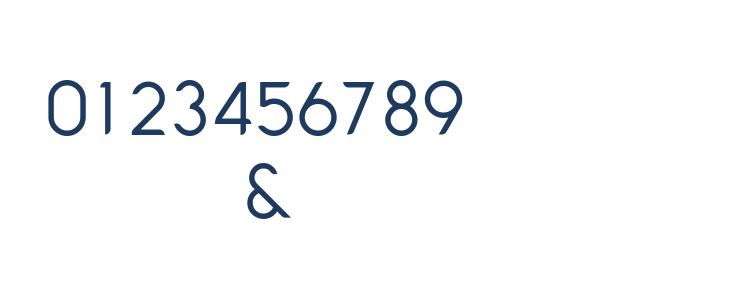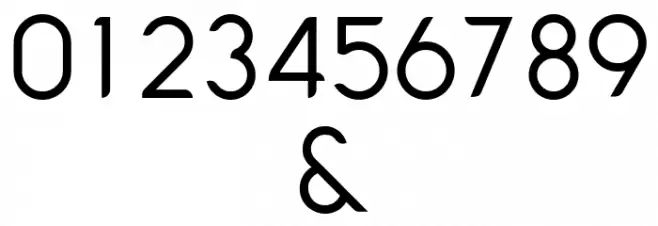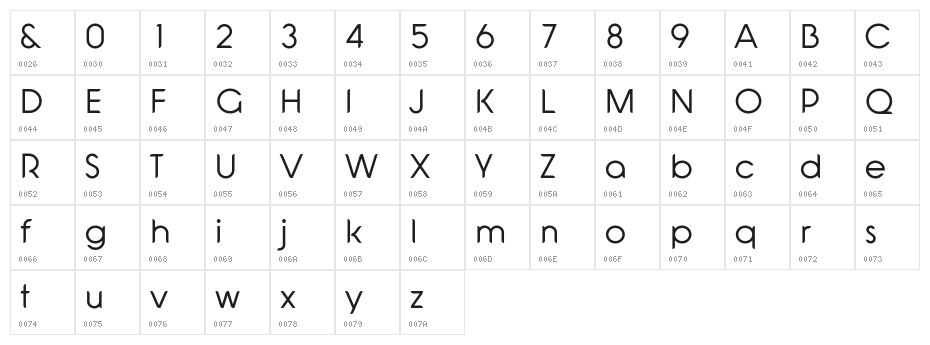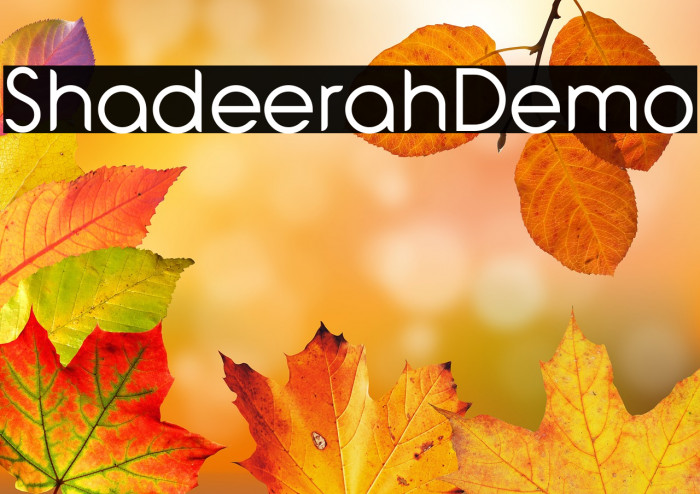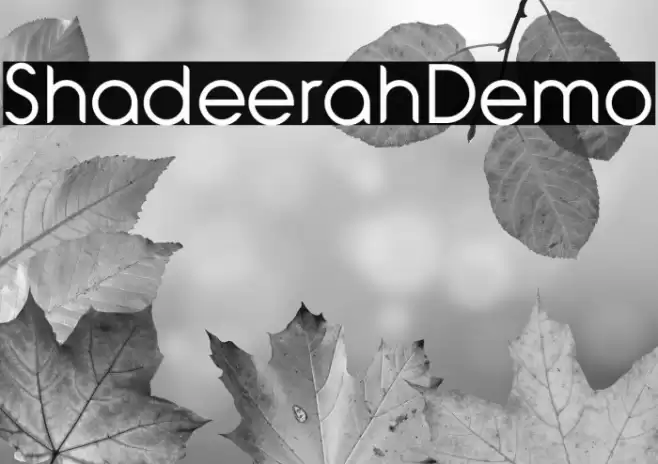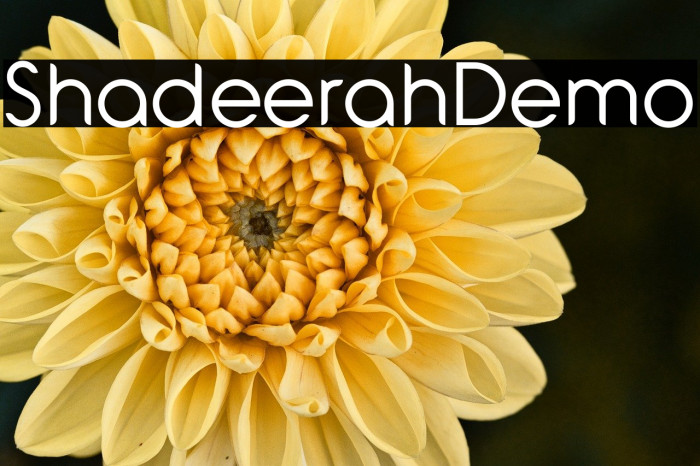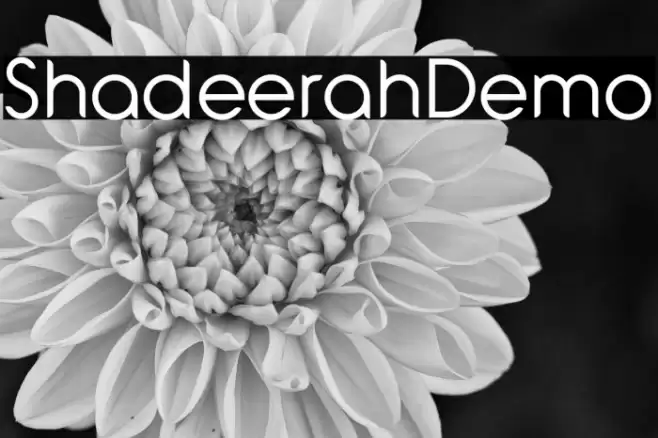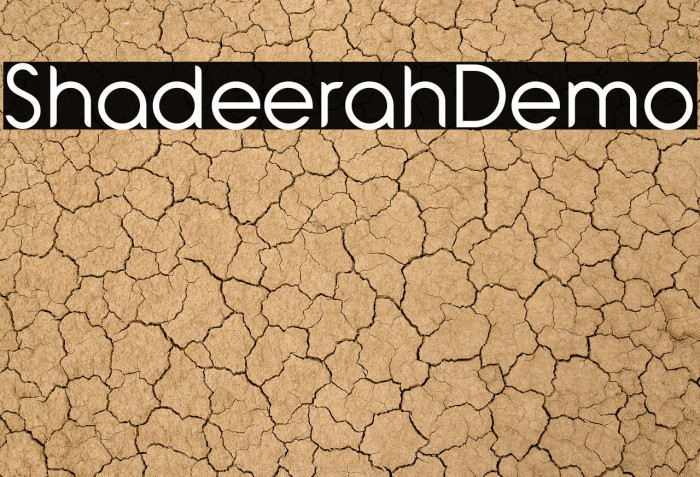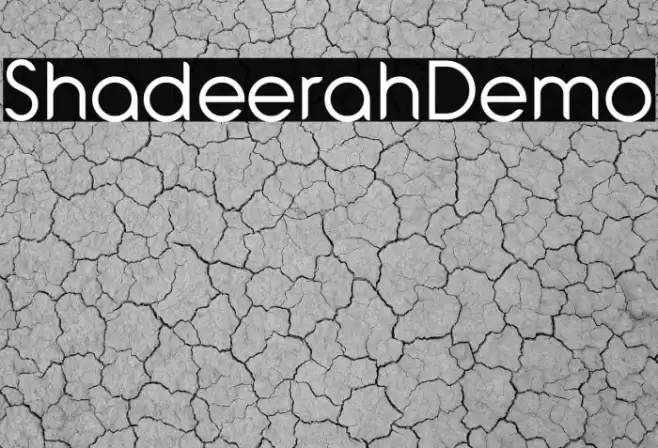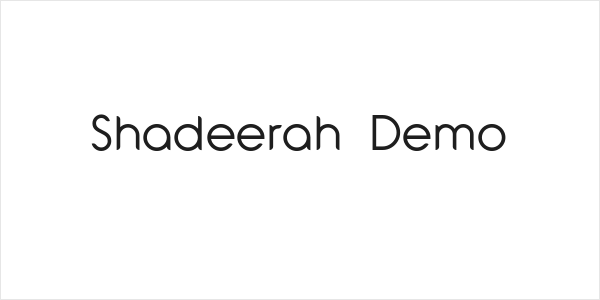
Shadeerah Demo Font
Shadeerah Demo Description
This font features a clean and modern design with smooth, rounded edges and a uniform stroke width. The characters are well-balanced, offering a harmonious appearance that is both approachable and professional. The uppercase letters are slightly taller than the lowercase, providing a subtle distinction that enhances readability. The numerals are consistent with the overall style, maintaining the same rounded and friendly aesthetic. Special characters are included, such as the ampersand, which is elegantly curved, adding a touch of sophistication. This font is versatile, suitable for a range of applications from digital to print media.